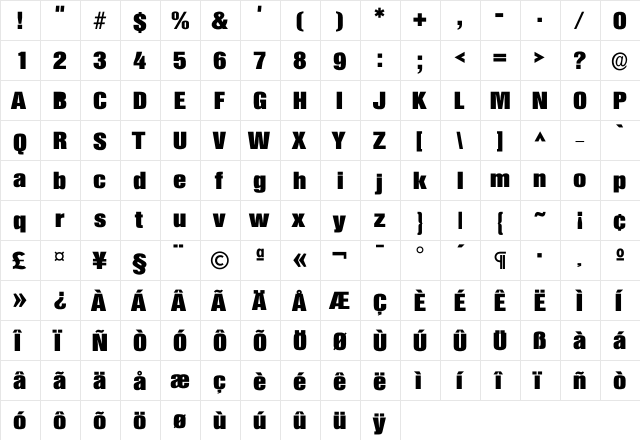
Colympia Heavy
Design Context for Colympia Typeface
Colympia offers clean, dependable letterforms without strong stylistic allegiance, making it a practical choice for designers who need flexibility.